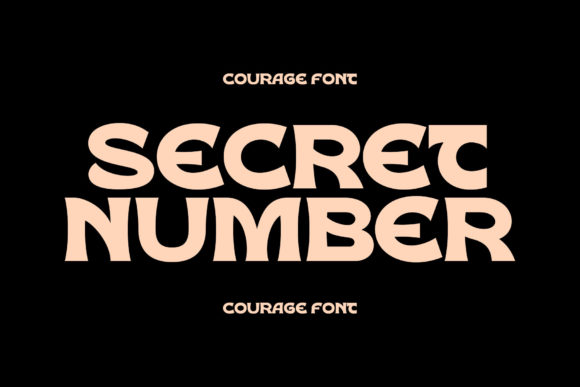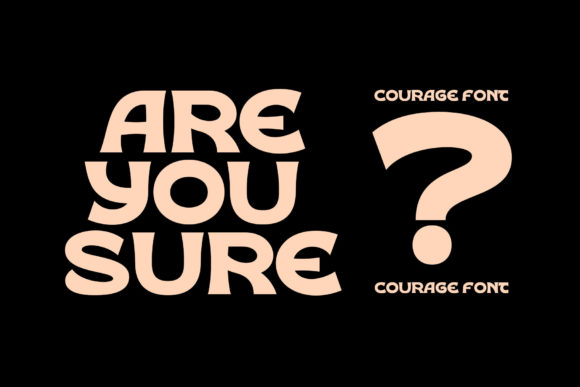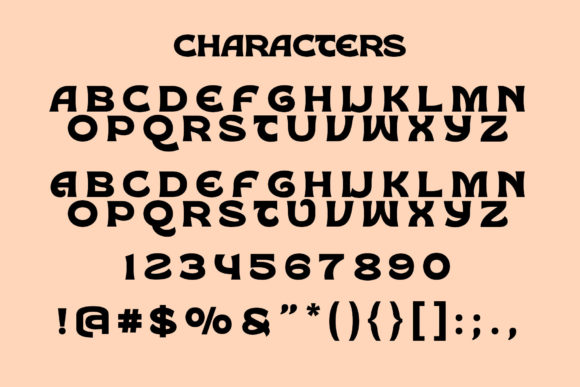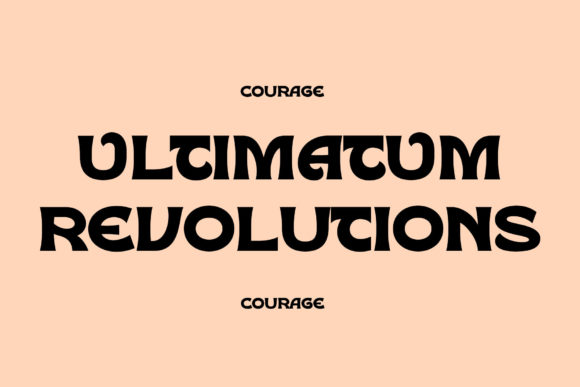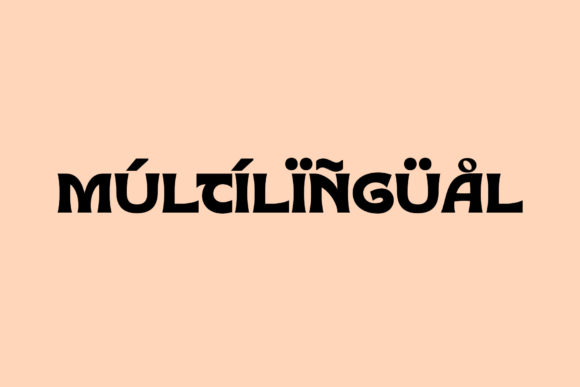
The Courage Font: A Timeless Classic for Your Designs
I’ll never forget the time I was working on a project for a client who wanted a vintage-inspired logo. I had spent hours scouring the internet for the perfect font, but nothing seemed quite right. That was until I stumbled upon the Courage font. This stunning display font perfectly combines vintage and classic styles, and I knew immediately that it was the one. In this article, I’ll share my experience with the Courage font, its features, and how to make the most of it in your designs.
An Honest Review of Courage Font
- ✨ Elegant and sophisticated design that adds a touch of class to any project
- ✅ Perfectly balanced vintage and classic styles that evoke a sense of nostalgia and timelessness
- 🎉 Works beautifully for titles, headings, and short paragraphs, making it versatile for various design applications
While the Courage font is an excellent choice for many designs, there are a few things to keep in mind:
- ⚠️ May not be suitable for body text due to its display font nature and potential lack of readability at smaller sizes
- 🤔 Some characters may not work well in all contexts, so it’s essential to test the font thoroughly in your design
- Experiment with OpenType features like ligatures and stylistic alternates to add more personality to your text
- Explore glyphs and stylistic alternates to add more variety to your text
The Designer Inspiration Behind Courage Font
The Courage font was designed with the goal of creating a timeless and sophisticated display font that would evoke a sense of nostalgia and elegance. The designer drew inspiration from classic vintage fonts, combining them with modern elements to create a unique and versatile font.
| Font Name | Courage Font |
| Author | dnartdesignn |
Q: What type of projects is the Courage font best suited for?
A: The Courage font is perfect for designs that require a touch of elegance and sophistication, such as logos, titles, headings, and short paragraphs.
Q: Is the Courage font easy to read?
A: The Courage font is a display font, and as such, it may not be suitable for body text or long paragraphs. However, it is designed to be elegant and refined, making it perfect for titles, headings, and short text elements.